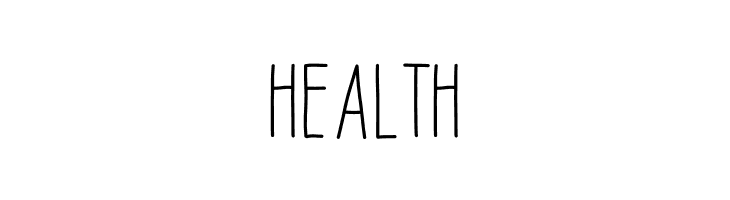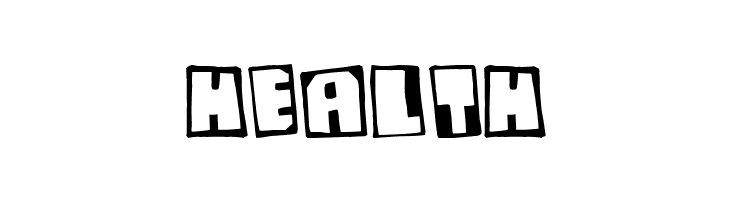
( Emily Spadoni - www.emilyspadoni.com/ )
An elegant and sophisticated cursive font with sweeping curves and delicate flourishes.
( Emily Spadoni - www.emilyspadoni.com/ )
A whimsical, cursive script font with flowing, elegant strokes.
( Het Lettertype Van Duitsland - William Hallworth-Cook )
A bold, pixelated font with a geometric, retro digital style.
( I Like Fonts - Alan Alan )
A playful, bold font with characters enclosed in square shapes, offering a casual and dynamic look.
( Dominique Demetz )
A whimsical font with celestial motifs and playful, decorative elements.
( Cotbada Studio - Isfani - creativemarket.com/Cotbada_studio )
A playful, elegant script font with a handwritten feel and medium contrast.
( Genumano - Douglas Charles Cunha )
A modern sans-serif font with smooth curves and balanced structure.
( Didik Pratikno - joanatype.daportfolio.com )
A bold, geometric font with high contrast and structured design.
( Hareesh Seela )
A bold, 3D font with rounded edges and a playful style.
( Darrell Flood )